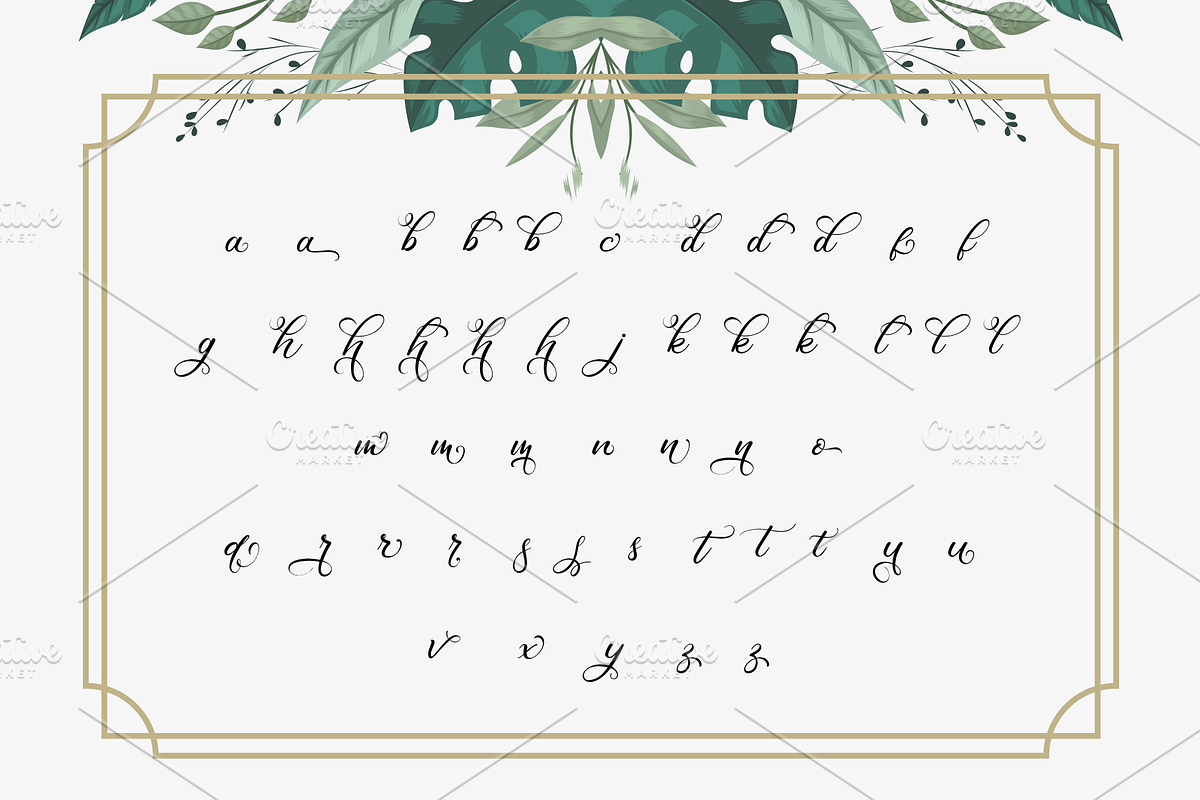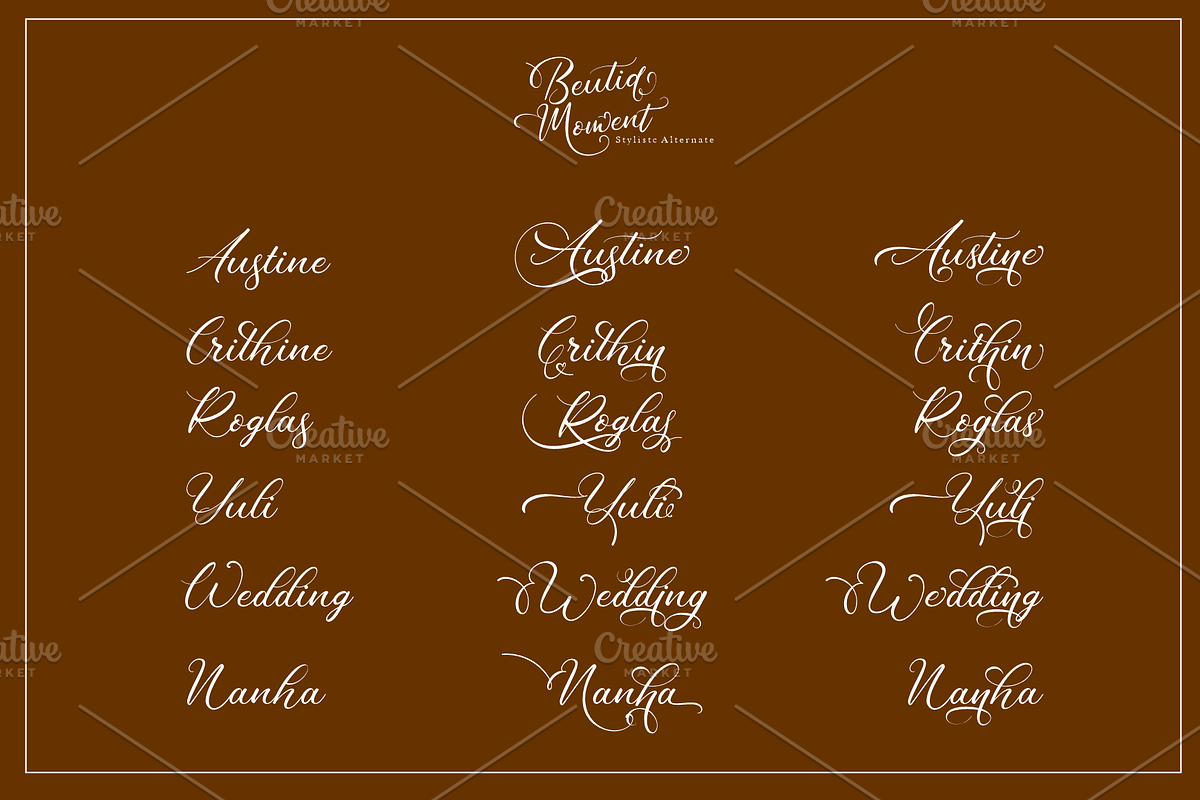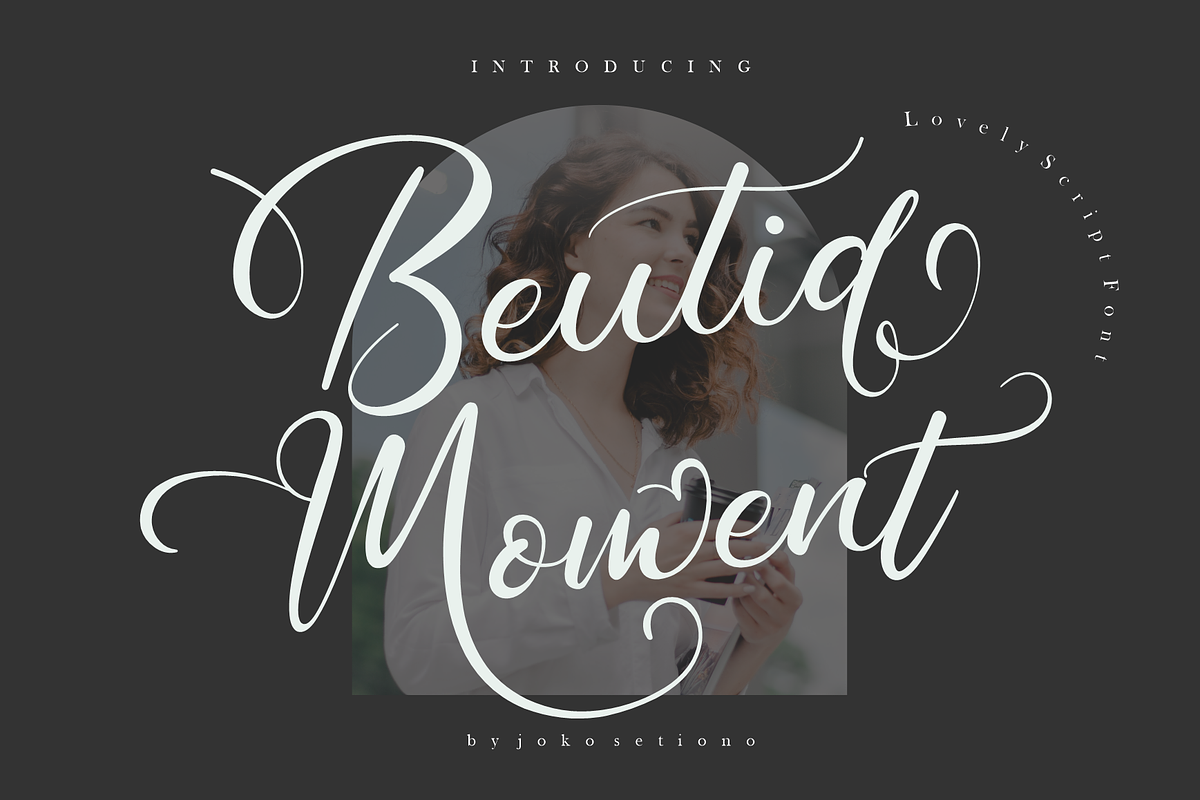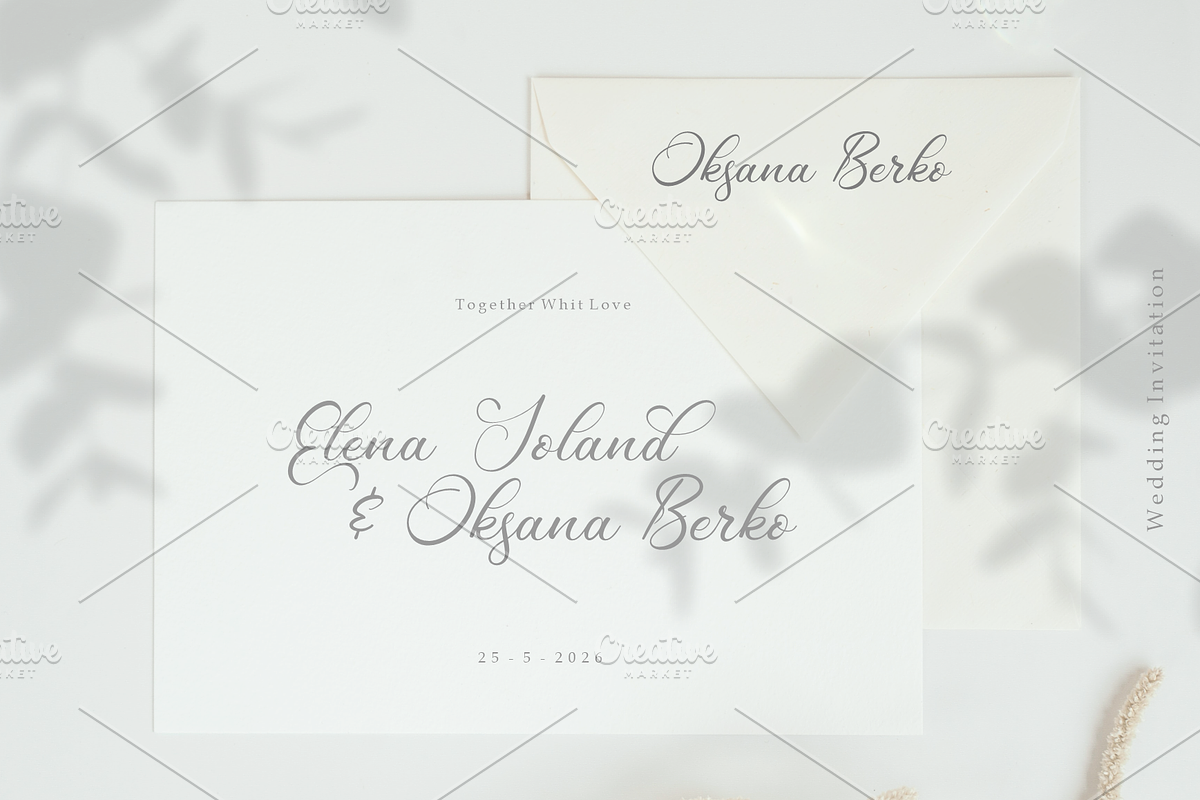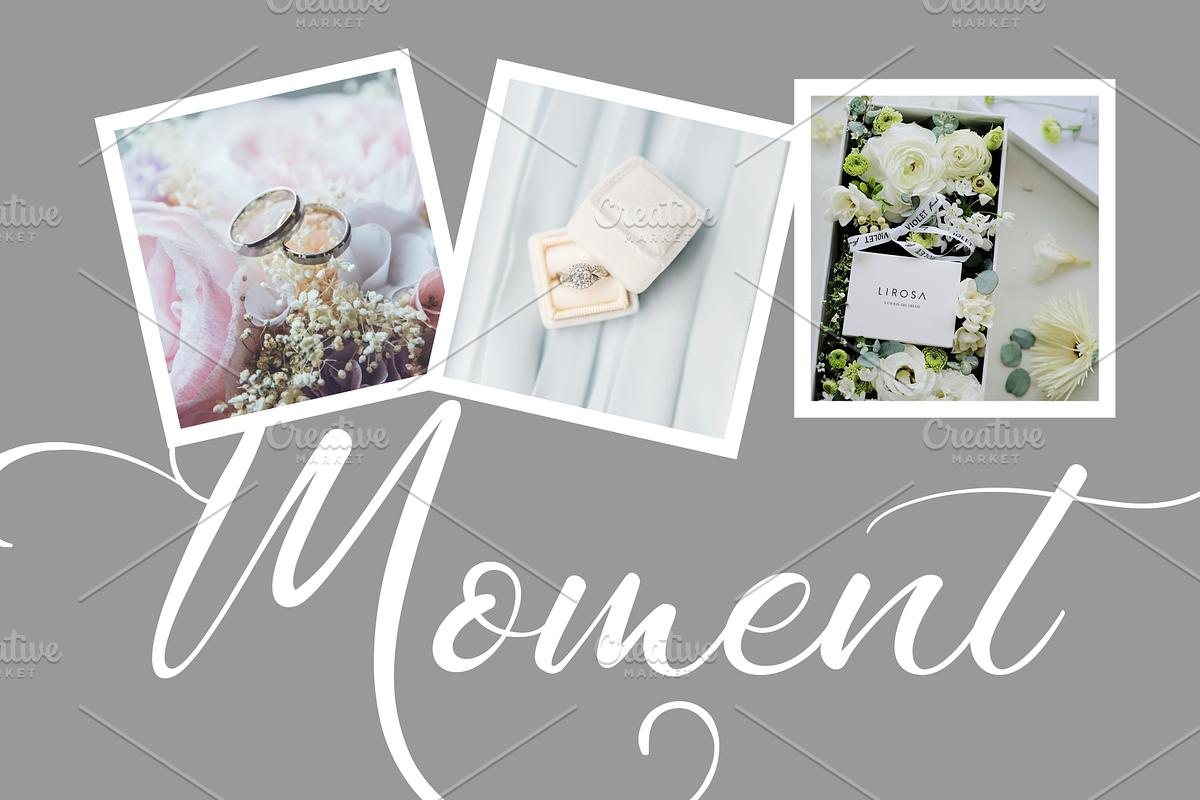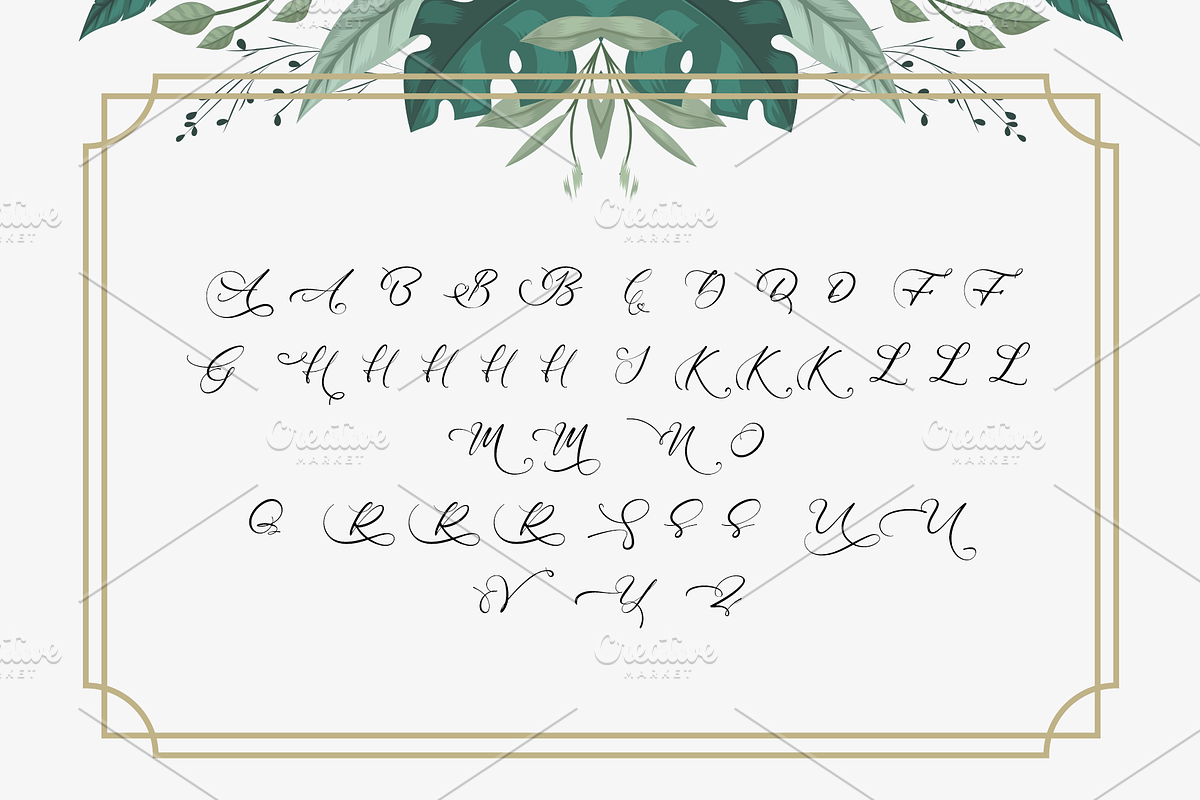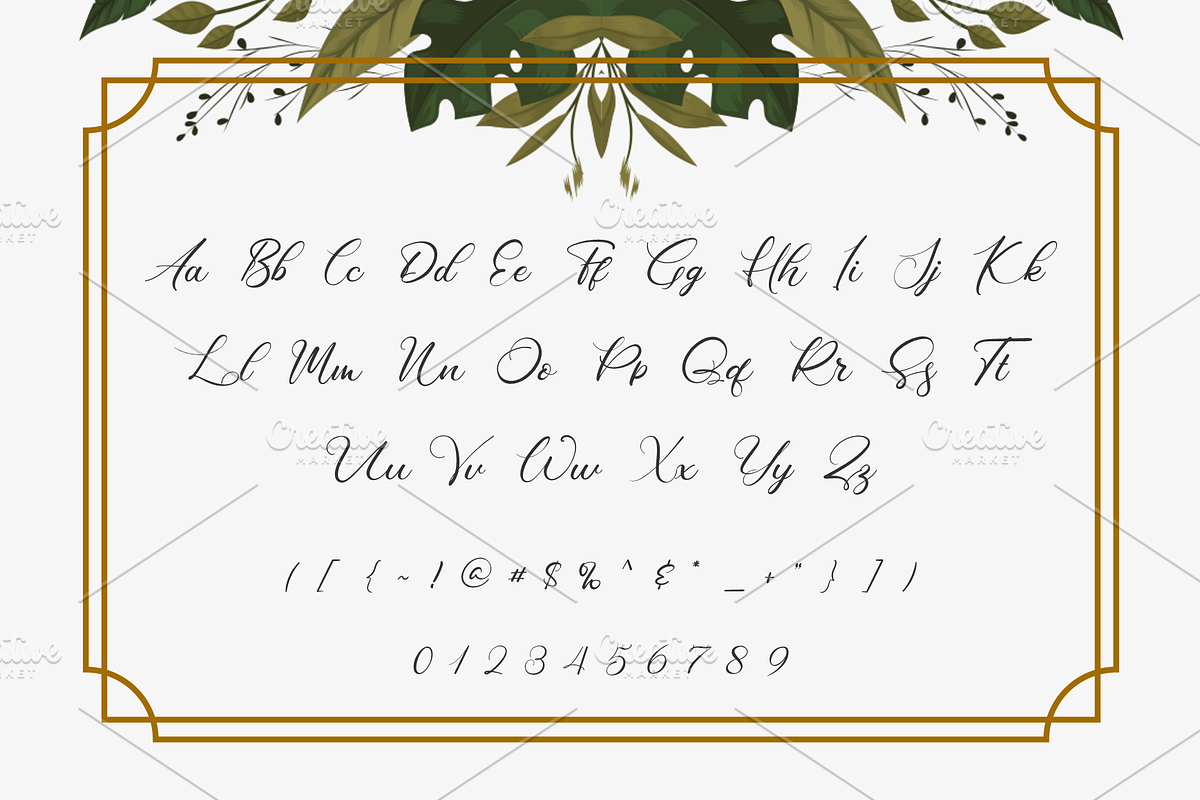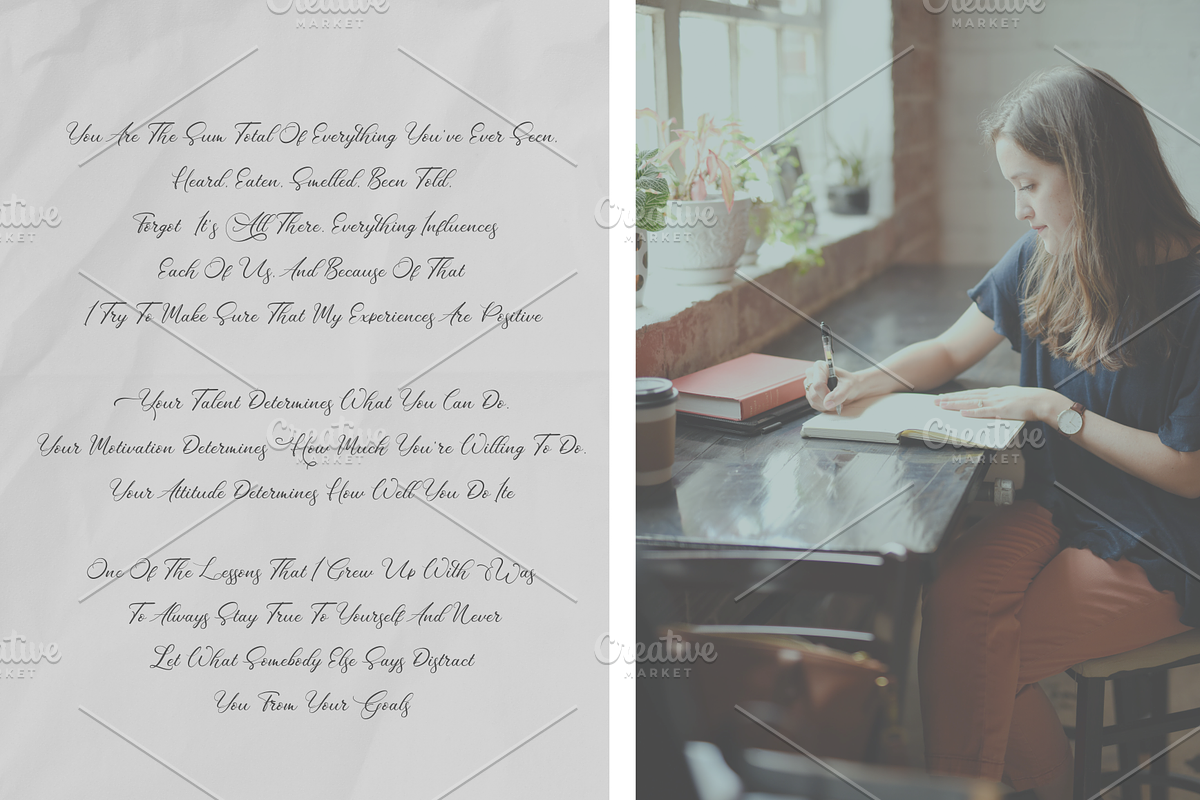
Beutiq Moment - Chic Signature
Beutiq Moment is a smooth, elegant and flowing handwritten font. It has a beautiful and balanced character and as a result, fits into a wide set of designs. Beutiq Moment is PUA coded which means you can access all the glyphs and sweeps easily!